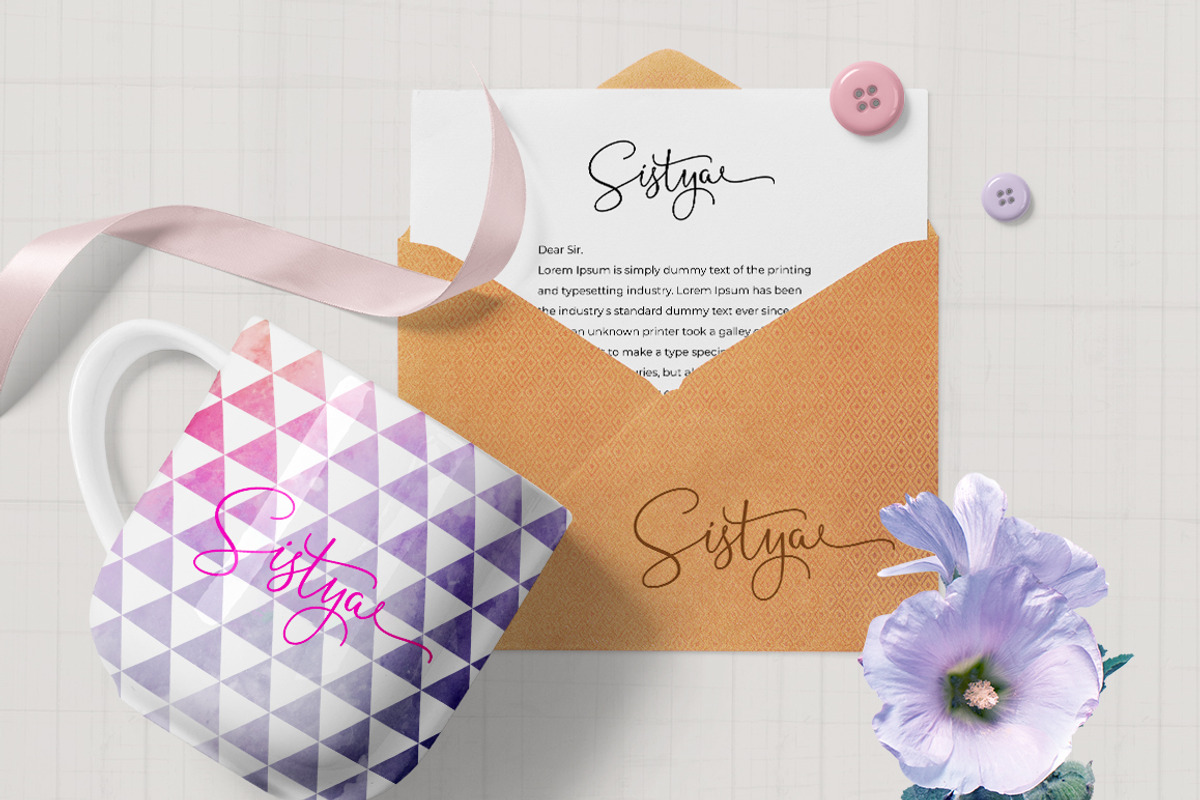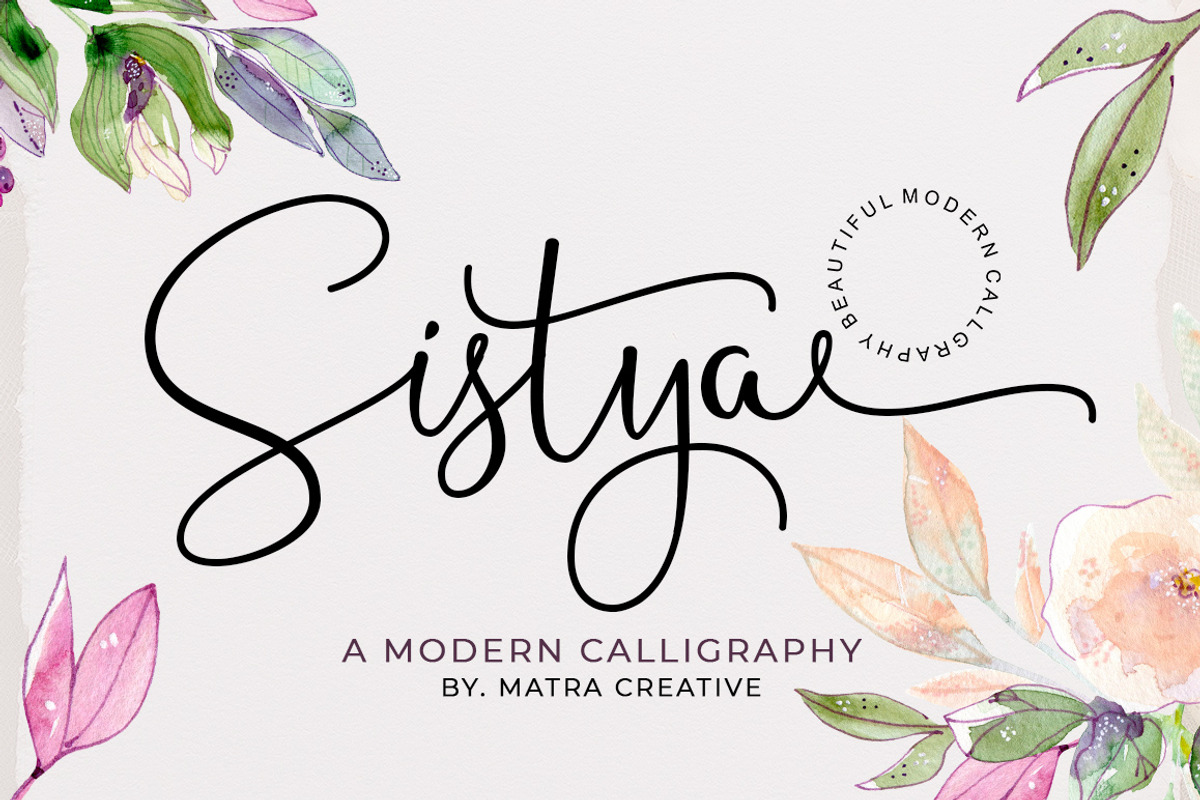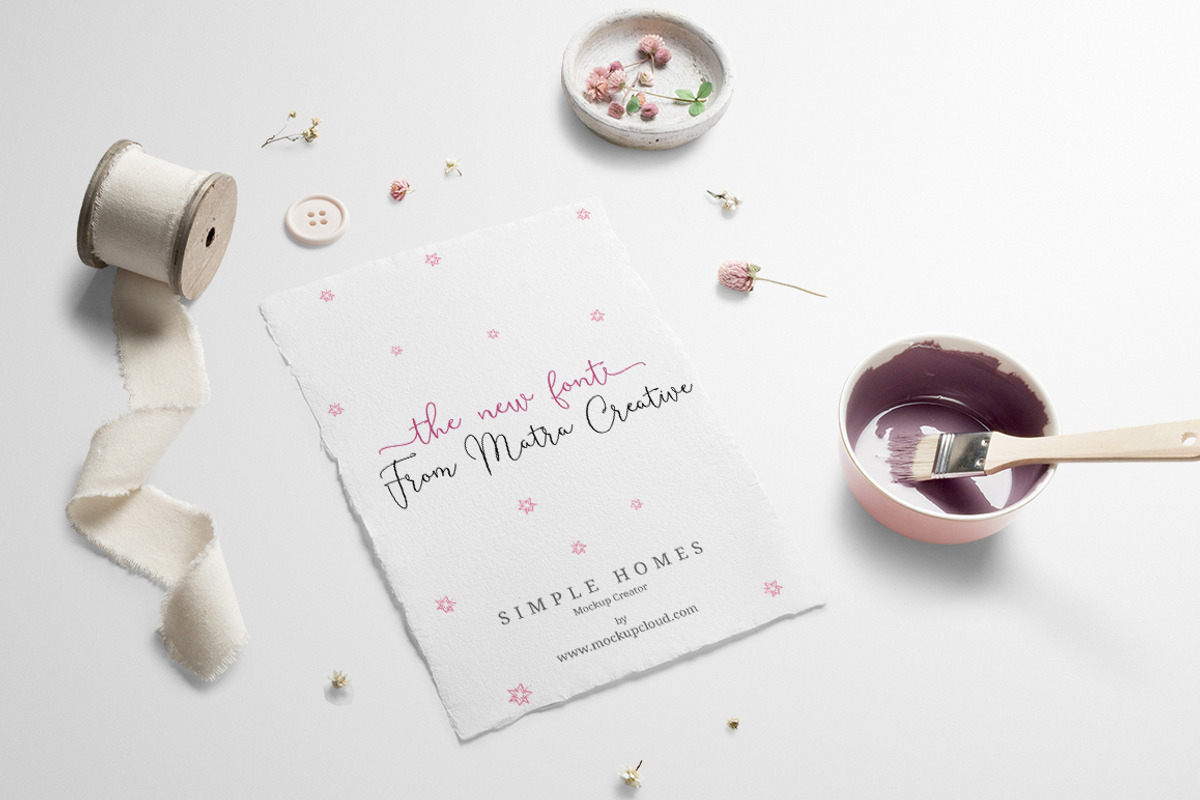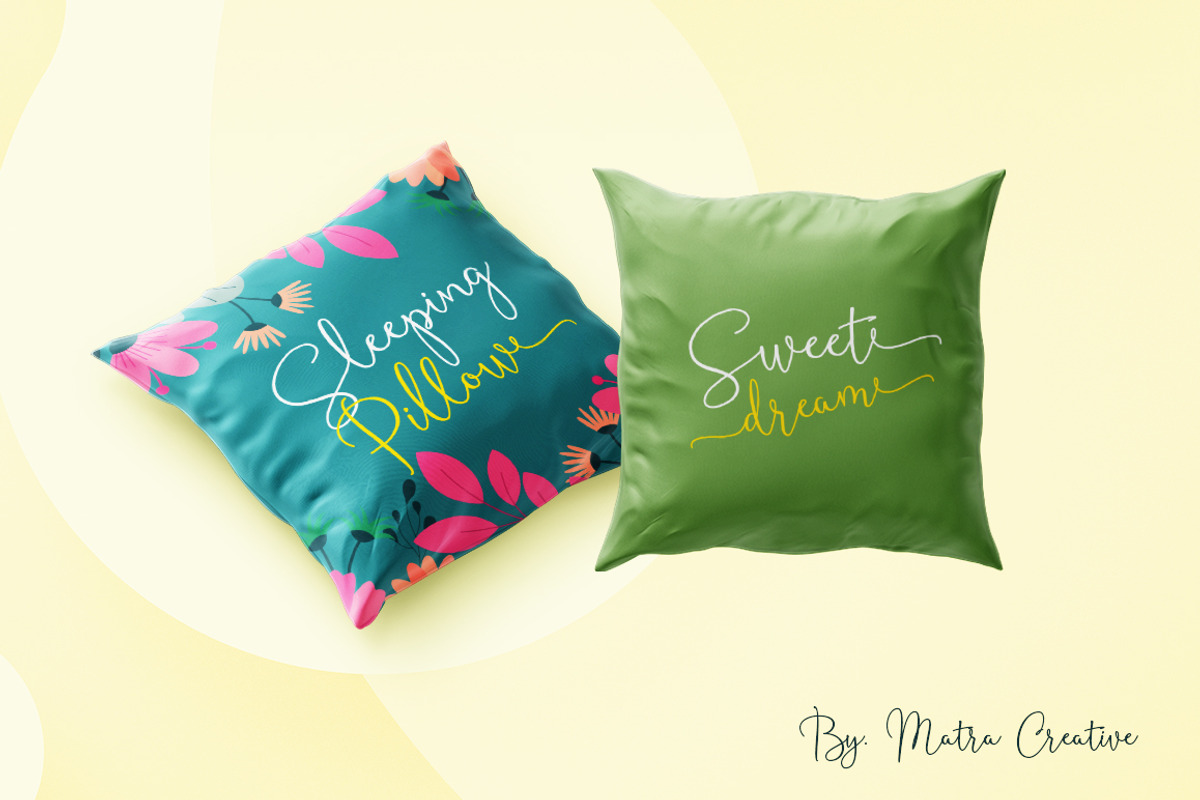
Sistya
Sistya is an elegant script font with a contemporary atmosphere and impeccable form, inspired by a timeless classic calligraphy. Not too thin and not too thick, balanced and varied, this font was designed to enhance the beauty of your projects. Sistya is PUA encoded which means you can access all of the glyphs and swashes with ease!